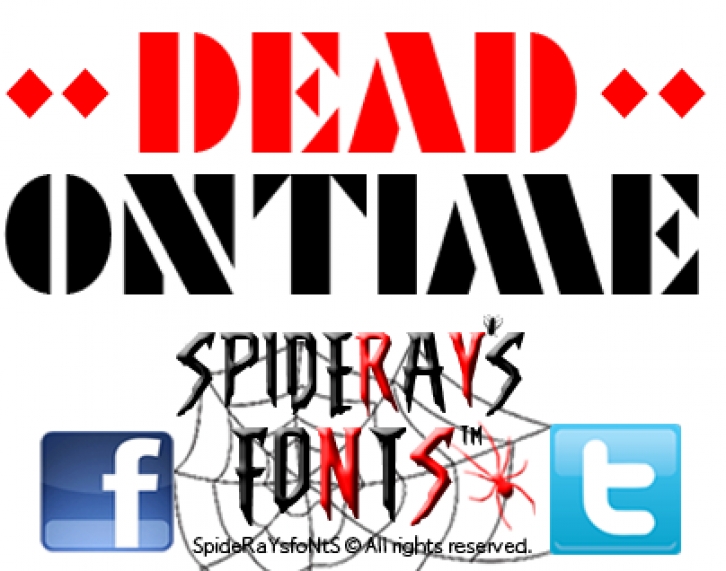
Fan-Font based the latest James Bond movie posters. Essentially it's an angular stencil typeface similar to my first ever typeface Pi R^2 (Pi R Squared) with gapped stems so I guess that's it's now been updated for 2020 the font's name was also inspired by the movie.